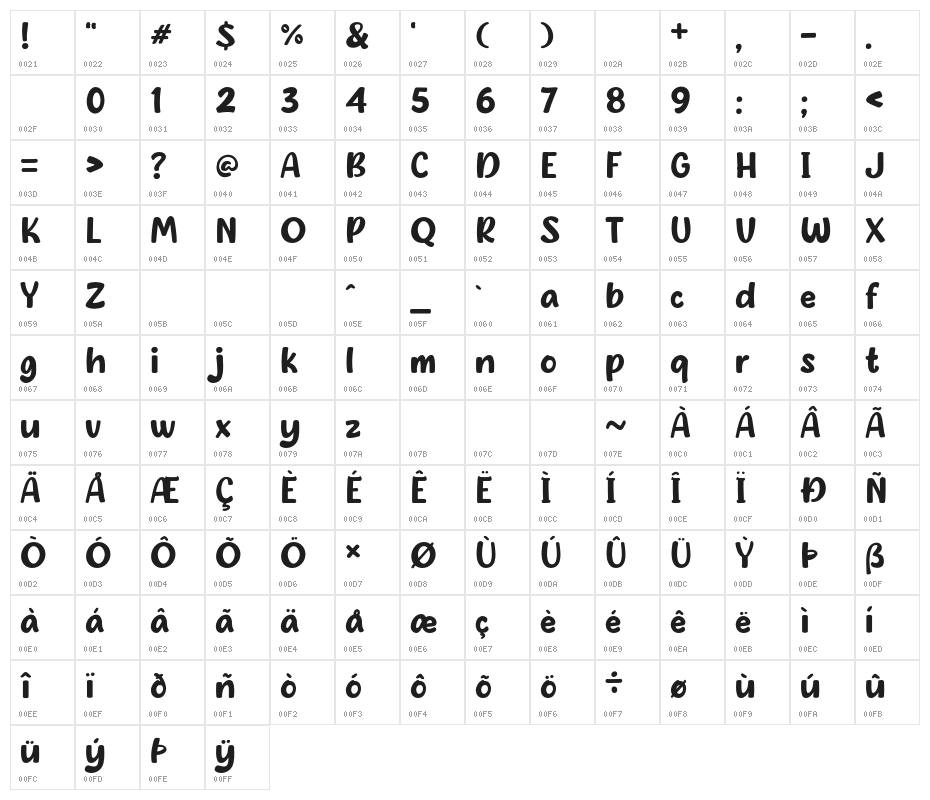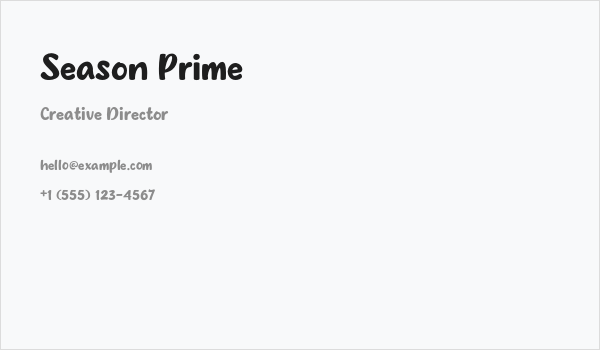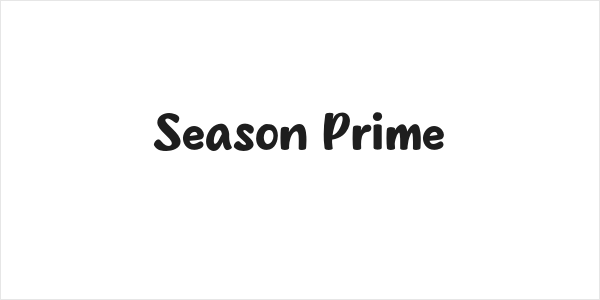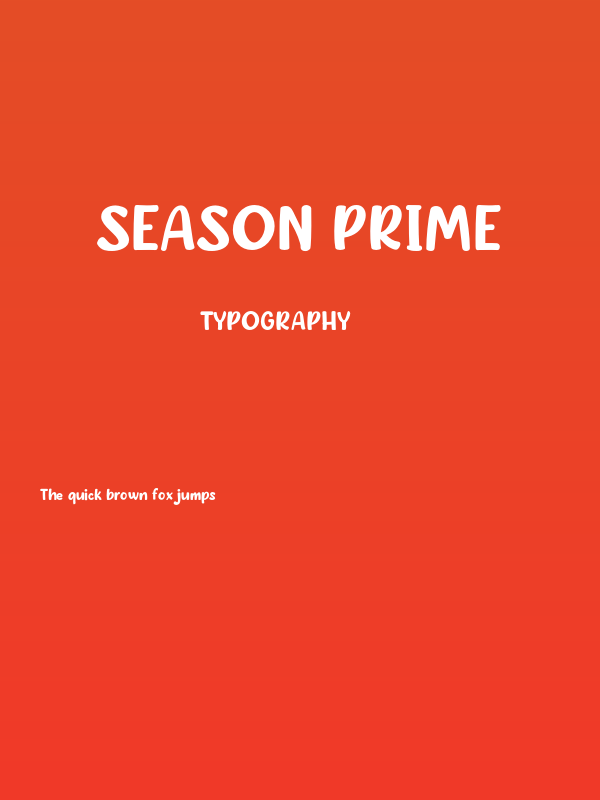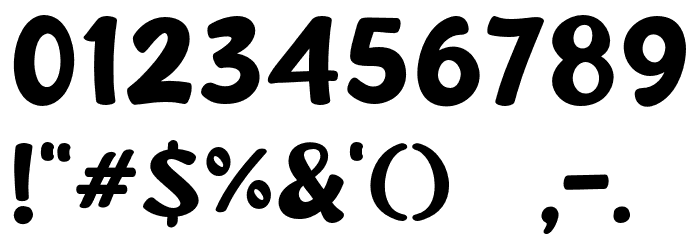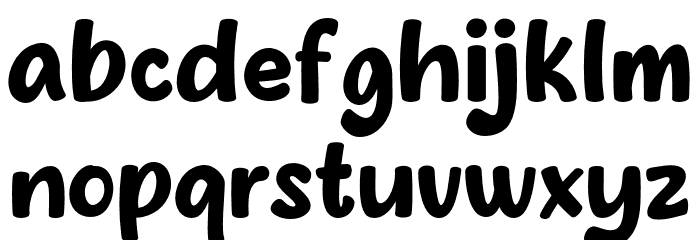
Season Prime Font
Season Prime Description
This font features a playful and bold design with rounded edges, giving it a friendly and approachable appearance. The letters are slightly irregular, adding a hand-drawn feel that enhances its charm. The uppercase and lowercase characters maintain a consistent style, with a slight variation in stroke width that adds to the font's dynamic look. The numerals are well-integrated, matching the overall aesthetic with their rounded forms. Special characters are included, maintaining the same playful style, making this font versatile for various creative projects.
| Proposed Projects | Ideal for children's books, playful branding, greeting cards, and casual posters. |